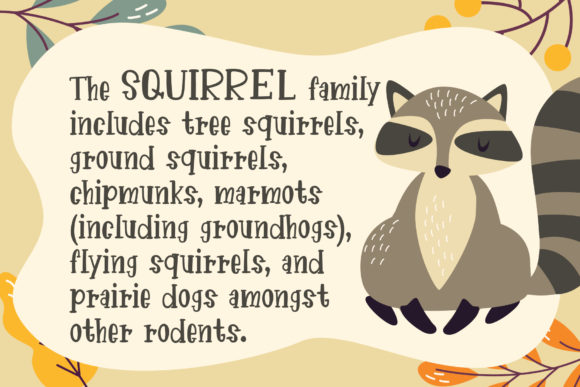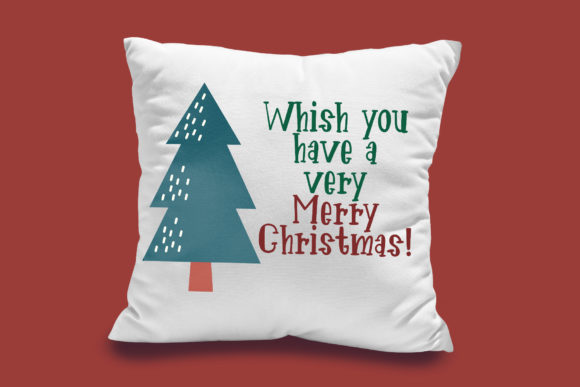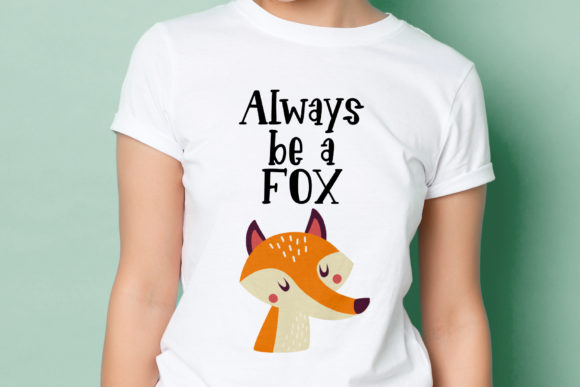
The Forest Animal Font: A Cute and Quirky Handwritten Delight
I’ll never forget the time I was working on a children’s book project, and I just couldn’t find the right font to bring the story to life. The client wanted something playful, fun, and engaging, but not too cartoonish. That’s when I stumbled upon the Forest Animal font, and it was love at first sight! 💕
Forest Animal is a cute and quirky handwritten font that has a cartoon-like style, making it ideal for a variety of children-related designs. In this article, I’ll share my honest review of the font, provide a practical guide on how to use it, and explore similar fonts and alternatives.
- Super cute and playful design that’s perfect for kids’ projects 🎉
- Handwritten style that’s easy to read and understand 📚
- Supports OpenType features, glyphs, and stylistic alternates, giving you plenty of creative freedom 🎨
Small Quirks and Limitations 🤔
- Some letters, like the uppercase “Q” and “X”, might be a bit tricky to read ⚠️
- Limited character set, so you might need to get creative with substitutions 🤔
The Story Behind Forest Animal
Forest Animal was designed by a talented type designer who wanted to create a font that captured the whimsy and playfulness of childhood. Inspired by forest creatures and the great outdoors, the font was carefully crafted to bring a sense of wonder and magic to any design project. 🌳